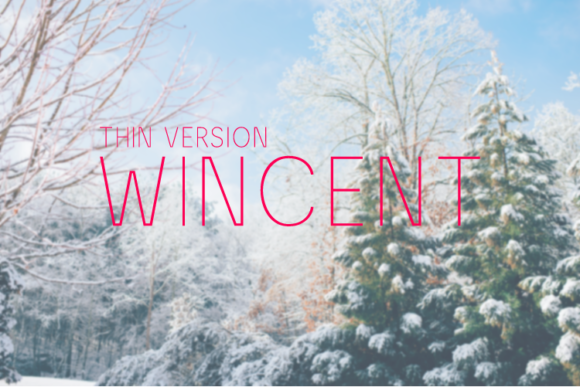
Introducing Wincent Thin, the font that will transform your creative visions into masterpieces. Immerse yourself in the world of typography with this exquisitely designed sans-serif font, a true testament to the power of simplicity and sophistication.
Step into a realm where elegance reigns supreme. Wincent Thin's clean lines and expertly crafted curves evoke a sense of effortless beauty, adding a touch of grace to every letterform. Its soft terminals, like gentle whispers, create a welcoming ambiance that draws the reader into the heart of your message.
With Wincent Thin, versatility is your constant companion. Whether you're crafting captivating headlines, designing alluring logos, or weaving enchanting narratives, this font adapts seamlessly to your every need. Its timeless appeal transcends trends, ensuring that your creations remain as fresh and captivating as the day they were born.
Embrace the allure of Wincent Thin and watch as your design projects blossom into works of art. Its understated charm will elevate your designs, adding a touch of sophistication without overpowering the message you seek to convey.
Discover the limitless possibilities that await with Wincent Thin. Let your imagination soar and let this extraordinary font guide you towards typographic excellence.